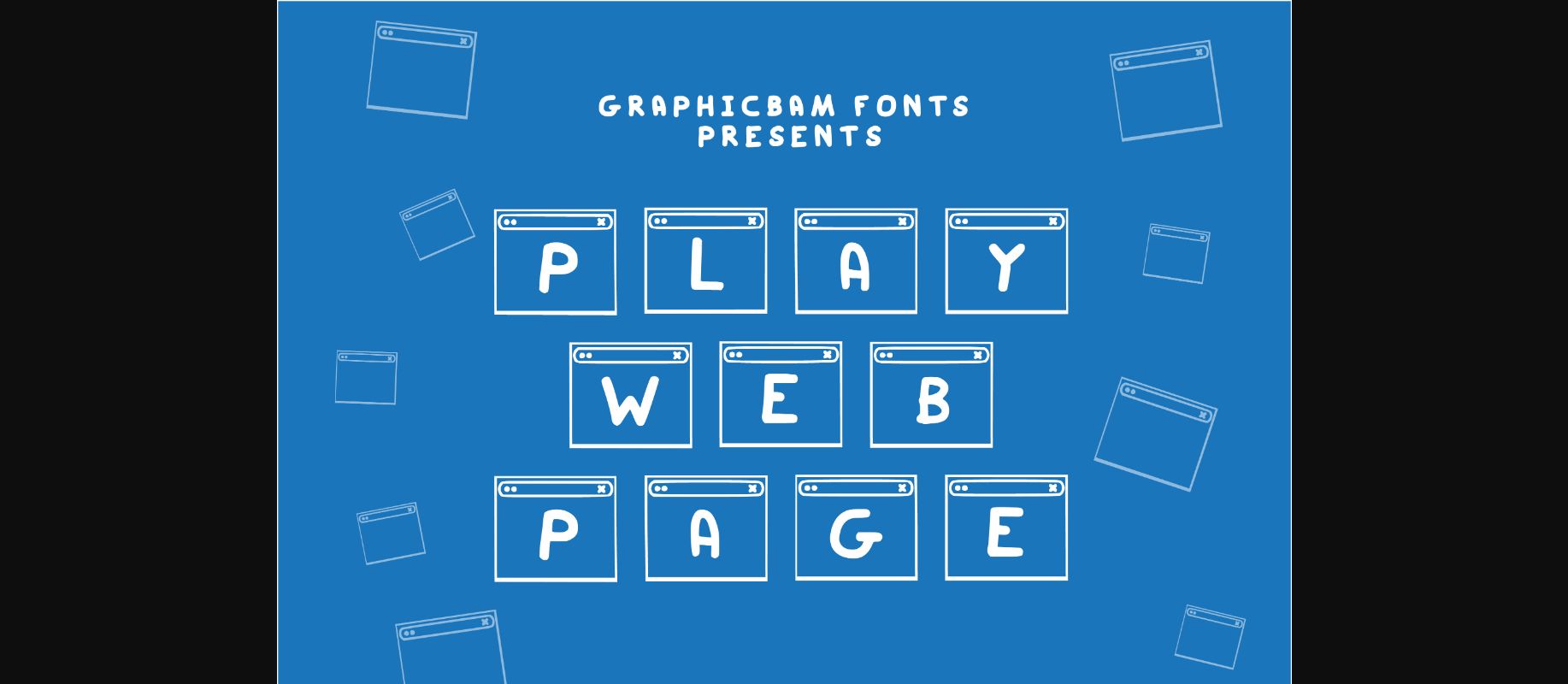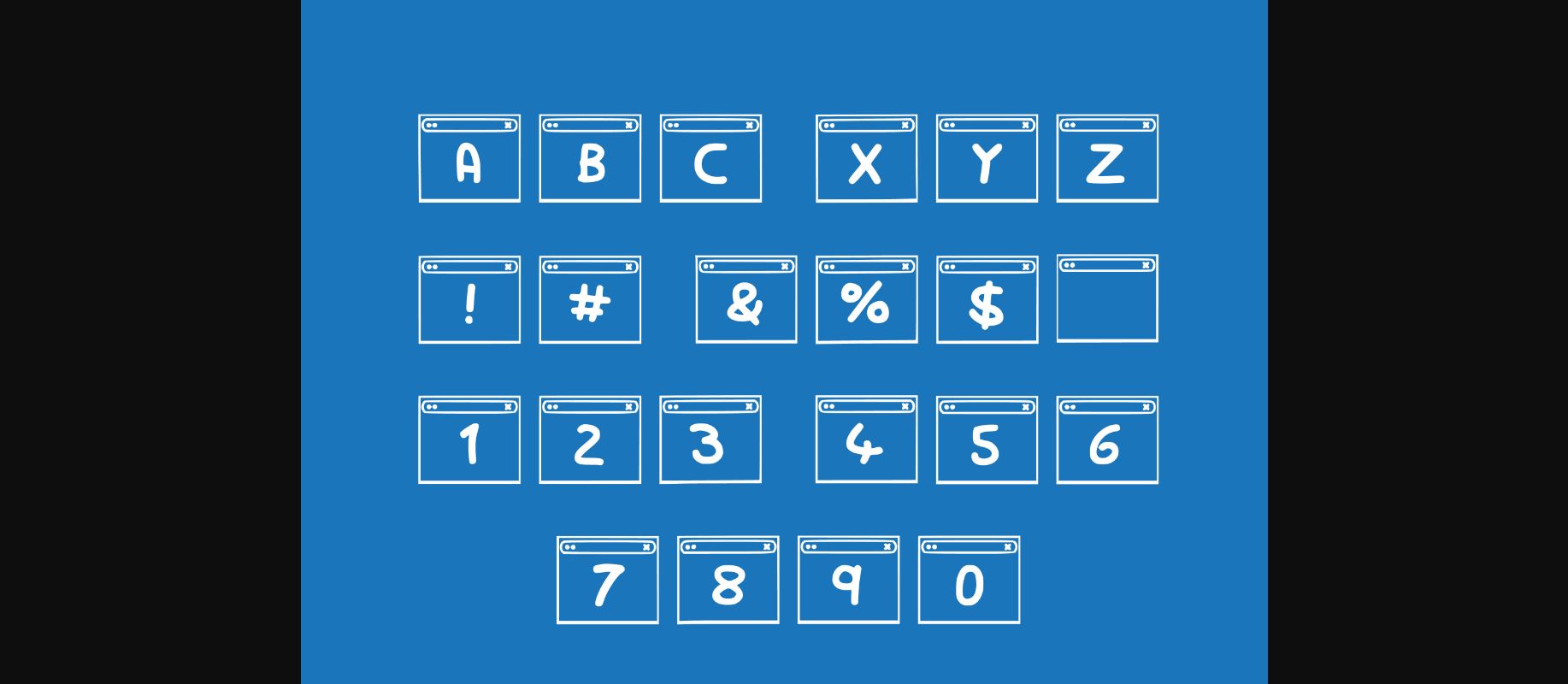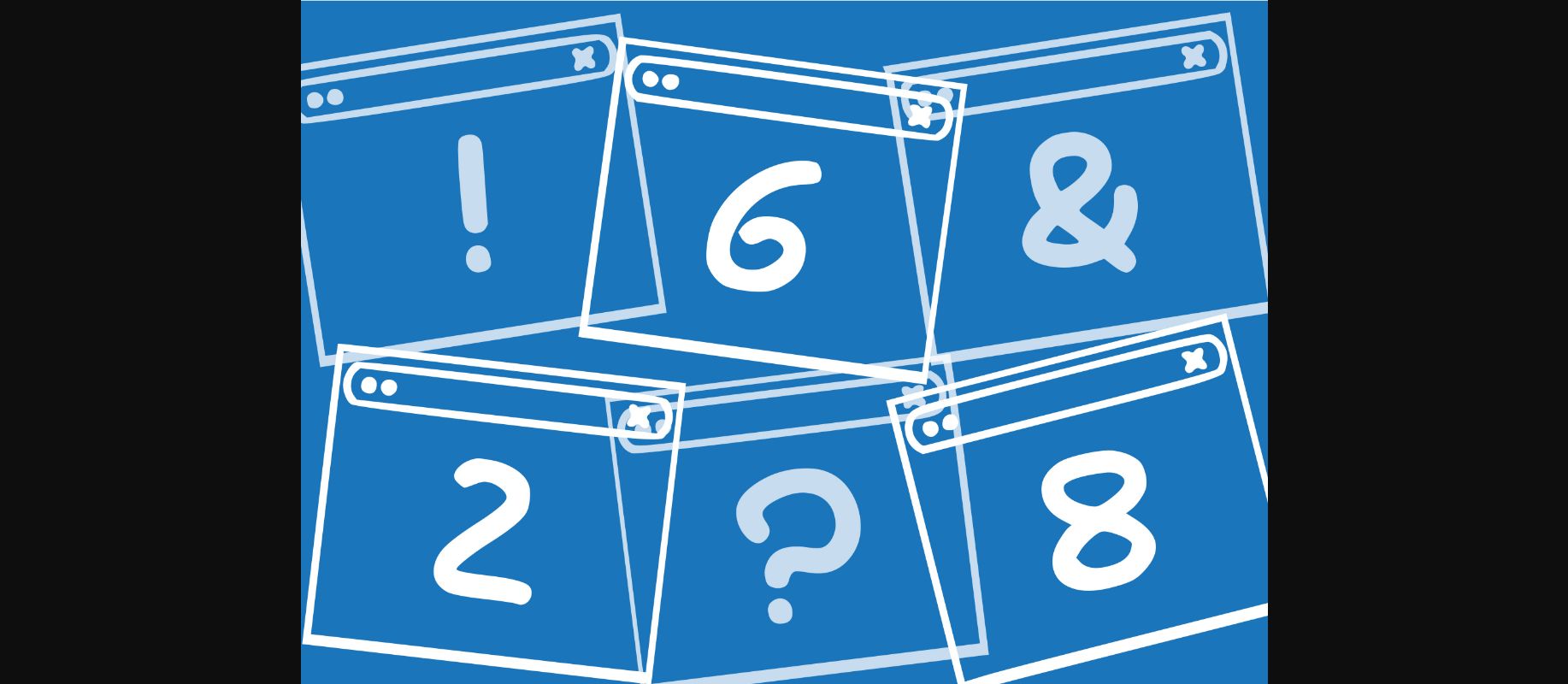
Play Web Page Font
About Play Web Page Font
Play Web Page is a cool looking and interesting decorative font. No matter the topic, this font will be an incredible asset to your fonts’ library, as it has the potential to elevate any creation.